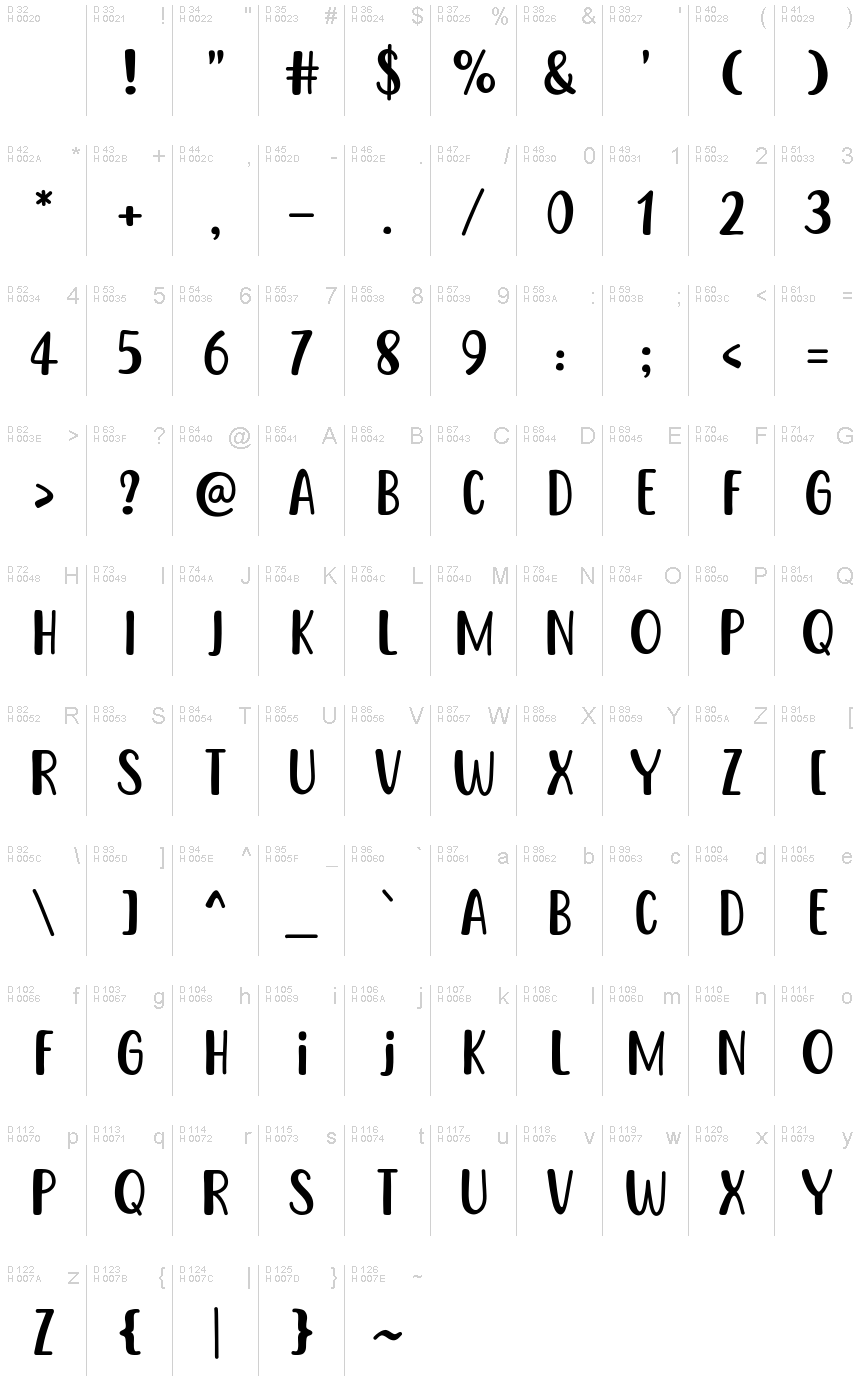
Save Lemon font, designed by Khurasan, is a captivating display typeface that embodies a playful and cartoonish aesthetic. Its whimsical curves and bold, pronounced strokes create a light-hearted vibe, making it perfect for designs that require a touch of fun and creativity. The unique character shapes give it an inviting charm that draws the eye, while its cheerful personality ensures messages are conveyed with warmth.
Ideal for use in children's books, vibrant branding, or engaging social media graphics, Save Lemon stands out as an exceptional choice for any project seeking to inspire joy and imagination. Its striking features make it an excellent fit for projects where visual impact is essential and playfulness takes center stage.
Save Lemon